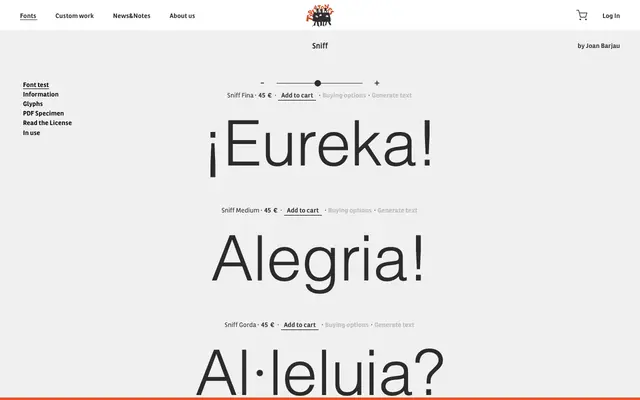
Sniff
A display sans by Joan Barjau offered in three weights, Fina, Medium and Gorda, plus an Open variant, with a character suited to expressive headline work.
Designed by Joan Barjau for Type-ø-tones, Sniff comes in four styles: Fina (thin), Medium, Gorda (fat) and Open. The weight naming in Catalan points to the foundry's Barcelona roots. The family is pitched at display and editorial contexts where personality at large sizes is the priority.
The weight variants named Fina, Medium and Gorda (Catalan/Spanish for thin, medium and fat) and an Open variant suggest a display-oriented sans family designed for expressive, large-scale use rather than text setting.